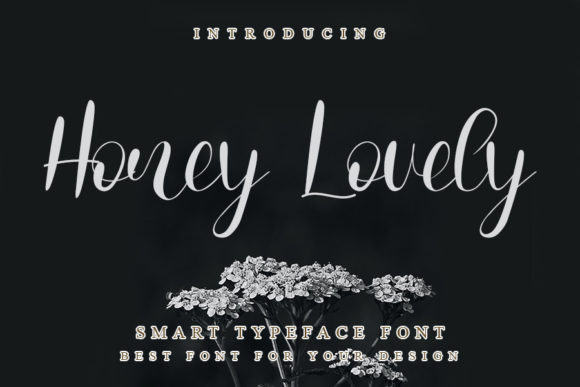
Introducing Honey Lovely Font, the enchanting script font that will infuse your designs with a touch of playful elegance. Crafted with meticulous care by NYA Letter, this font family is a symphony of charming, dancing characters eager to bring your creative visions to life.
Honey Lovely Font embodies the sweet allure of a summer breeze, with its graceful curves and flowing lines. Each letter seems to possess a vibrant personality, adding a touch of whimsy and delight to any project. Whether you're crafting enchanting invitations, captivating social media posts, or elegant business reports, Honey Lovely Font will elevate your designs with its captivating charm.
Beyond its undeniable aesthetic appeal, Honey Lovely Font is a versatile workhorse, adeptly adapting to a wide range of design styles. Its alluring nature lends itself beautifully to branding, packaging, and even wedding stationery, effortlessly enhancing your creations with a touch of sophistication and timeless allure.
But Honey Lovely Font's talents extend far beyond mere aesthetics; it's a font imbued with the power to evoke emotions and create lasting impressions. Its charming characters have a knack for capturing attention, drawing readers into your words and captivating their imaginations. With Honey Lovely Font, your designs won't just stand out; they'll resonate, leaving an unforgettable mark on all who encounter them.
So, unleash the magic of Honey Lovely Font and watch as your designs blossom into works of art. Let its playful spirit guide your creativity and experience the transformative power of a font that truly captivates. Download Honey Lovely Font today and embark on a design adventure where imagination and enchantment intertwine.